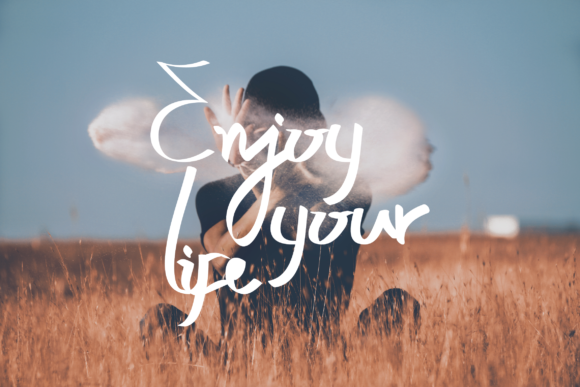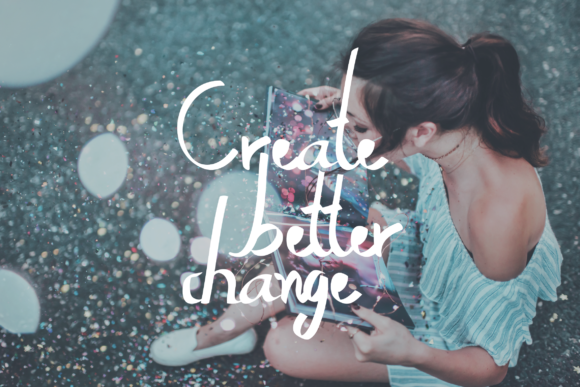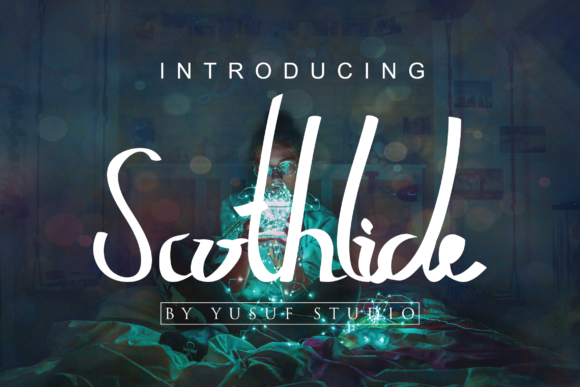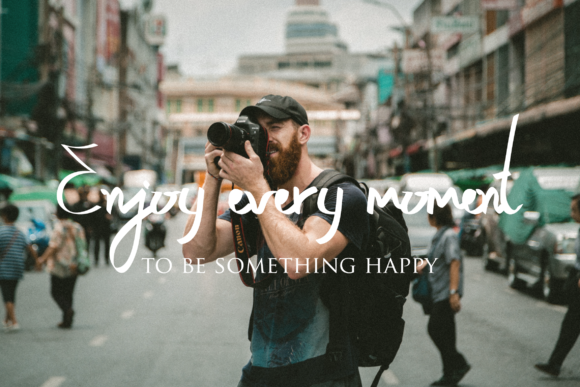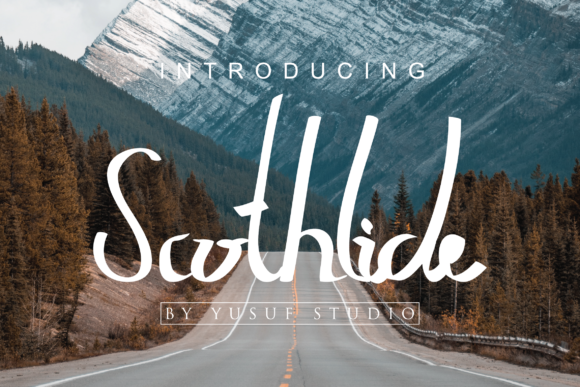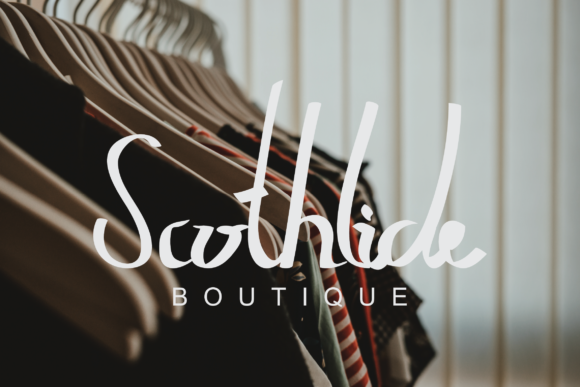
Scothlide Font
About Scothlide Font
The Scothlide is a bold and striking typeface. It’s easy to use and is perfect for logos, clothing, labels, product packaging, branding projects, photography, advertising, and any other project that requires a handwritten touch.